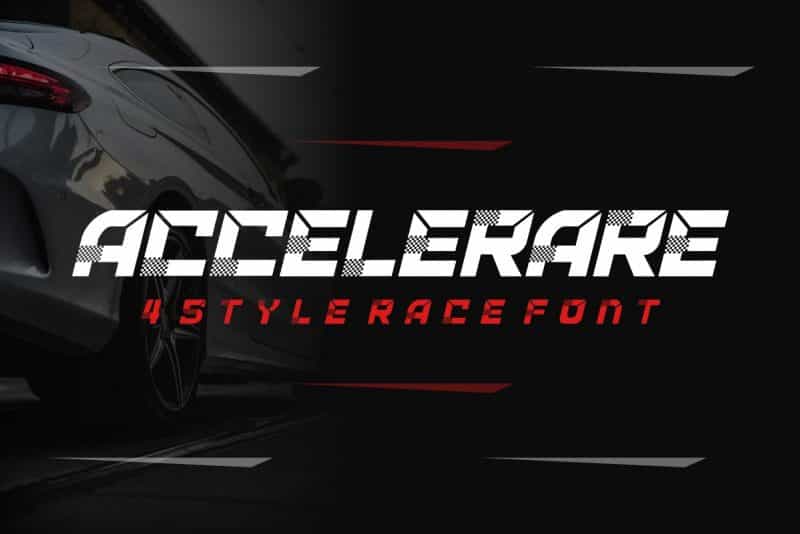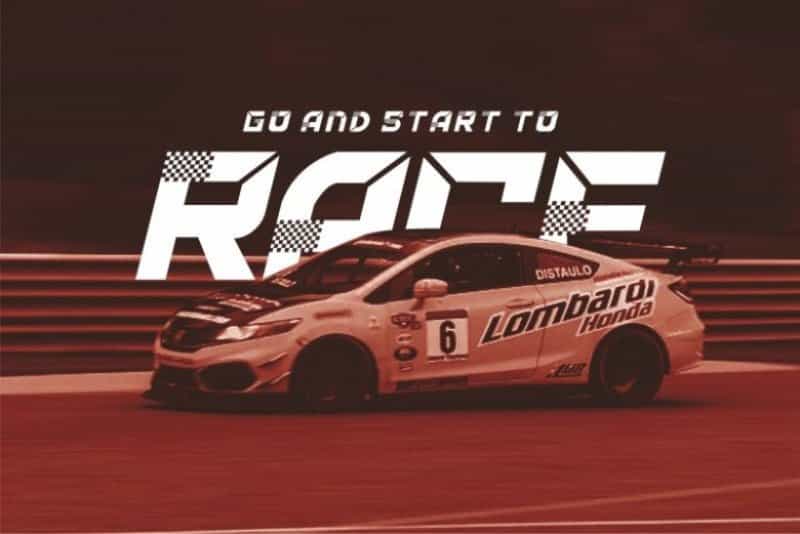
ACCELERARE is a sophisticated cool font will be perfect for branding, logo, sticker, decal, signage, flyer, brochure etc. There are many industries that suit this font : car, racing, automotive, tournament, cup, futuristic startup, etc. Thank you for looking this font. Hi everyone.